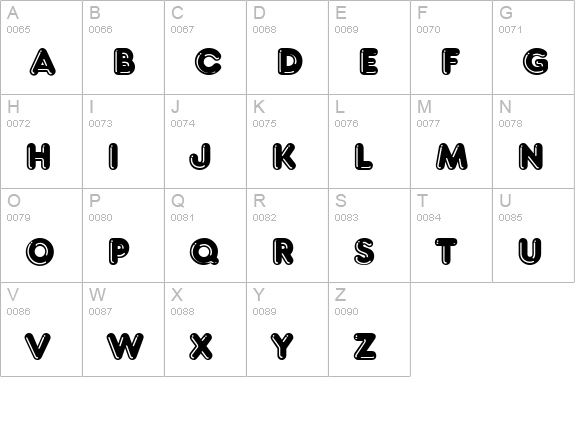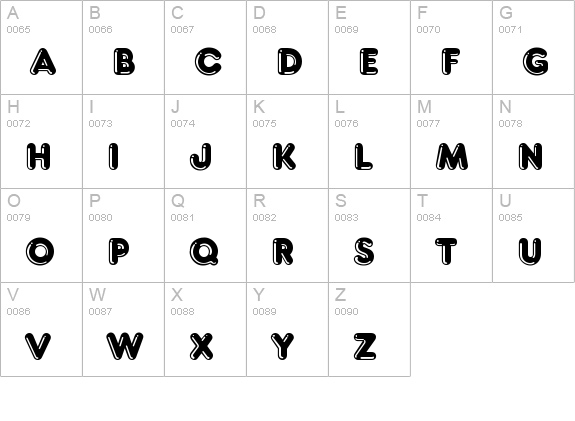
Frankfurt font is a stunning typeface with a perfect blend of modernity and elegance. Its sleek lines and sophisticated curves make it ideal for a wide range of design projects, from branding to editorial layouts. The versatility of Frankfurt font allows it to be used for both display purposes and body text, ensuring seamless integration into any design concept. What sets Frankfurt font apart is not only its exceptional design but also its accessibility. This high-quality font is completely free and available for download at FontsMarket.com, making it a valuable addition to any designer's toolkit. Whether you're working on a website, packaging design, or print materials, Frankfurt font is sure to elevate your project with its timeless appeal and effortless style. Unlock the potential of your designs with the free Frankfurt font today and see the difference it can make in your creative endeavors.